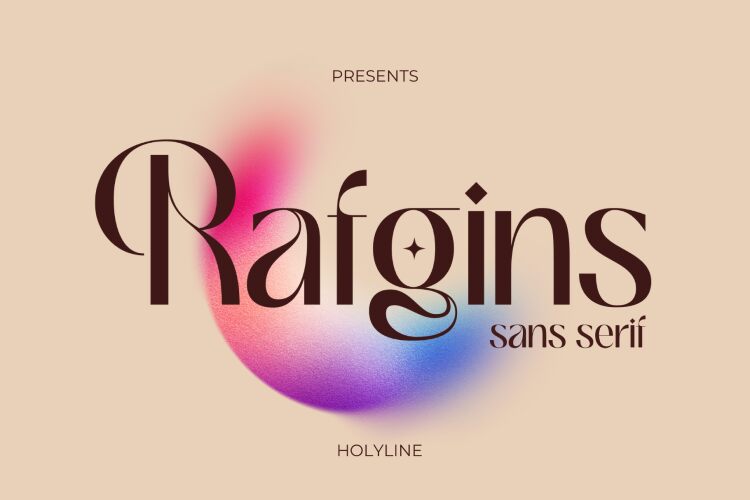
Rafgins font was created by Bagus Beratha Wijaya, an elegant retro display typeface with a sophisticated flair. It has beautiful decorative detailing, unique terminals and stylish bold strokes. Rafgins has elements drawn from familiar styles of the past but interprets them in an authentically modern way that’s ideal for eye-catching designs.
The style is both artistic and elegant. It’s suitable for projects like packaging, vintage logo design, T-shirts, postcards & note cards or even as a logotype. With its original signature look it stands out over other new retro fonts.
Rafgins